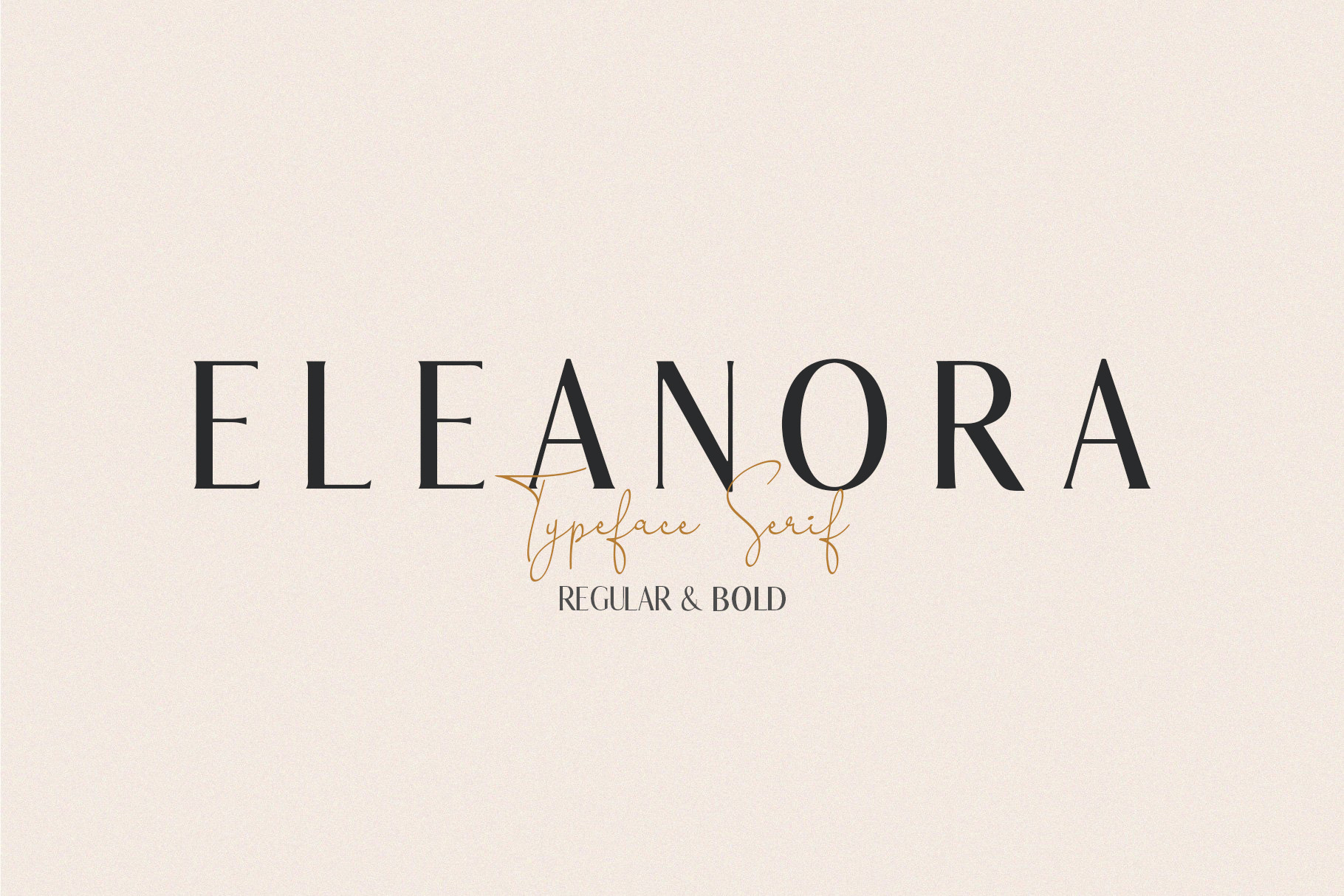
Eleanora - Modern Serif Font
Eleanora is a classic serif typeface with a whole lot of uses. I certainly love how beautiful it is to look at as you type each character and the letters softly appear. Take some time to go through the preview images and see what the font could do for your project. Remember, it has a regular and bold version for you to work with.
Eleanora includes a full set of uppercase and lowercase letters, accents, numerals, punctuation, and multilingual support/international characters.